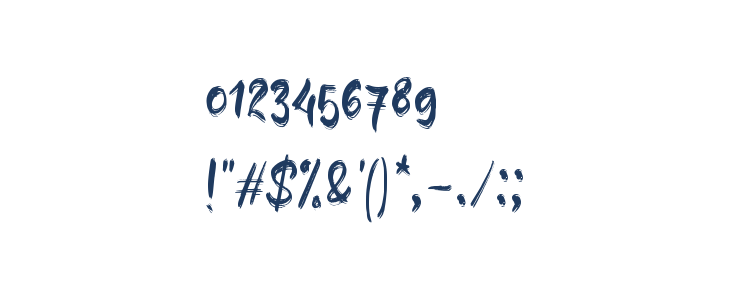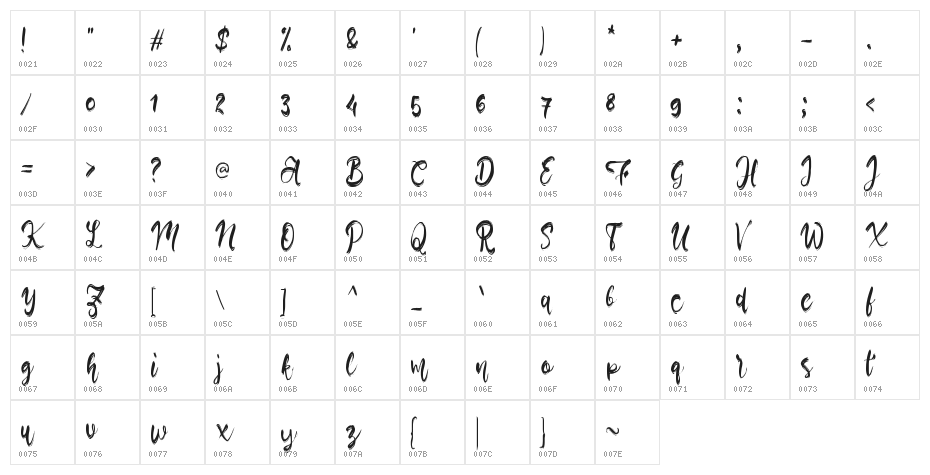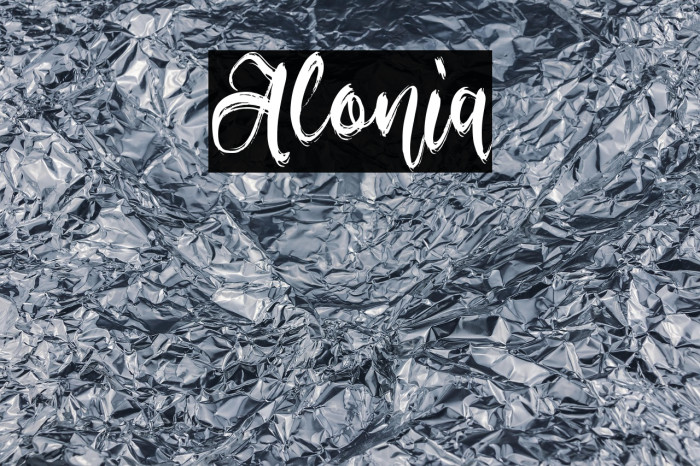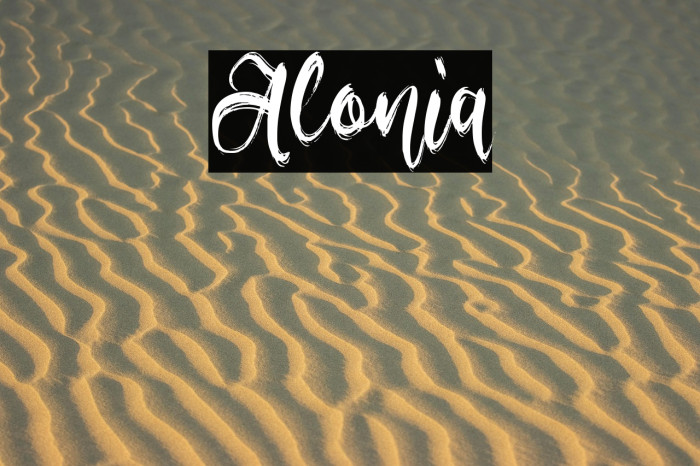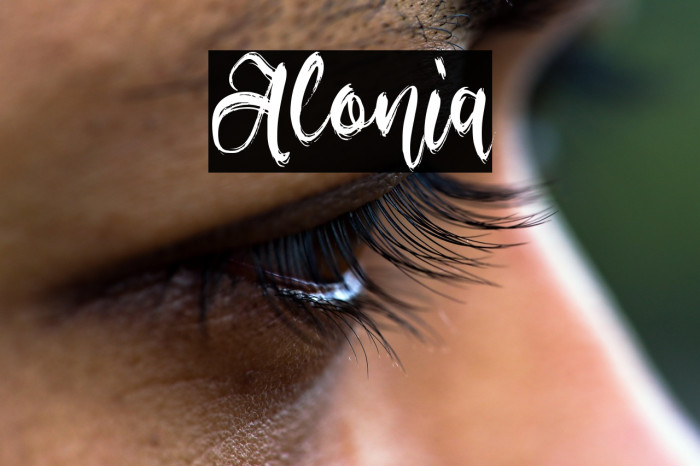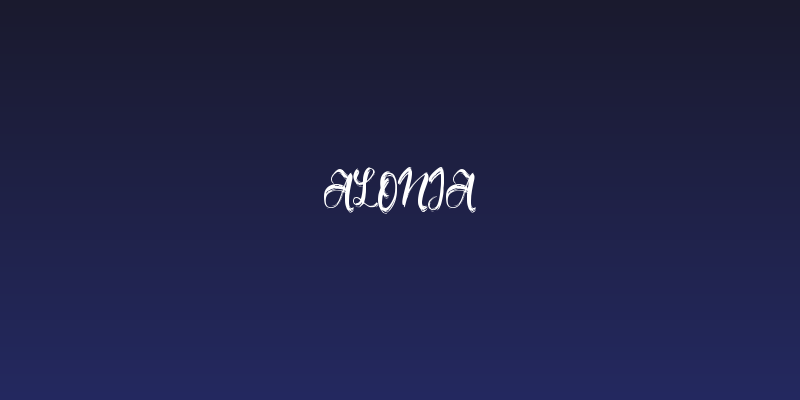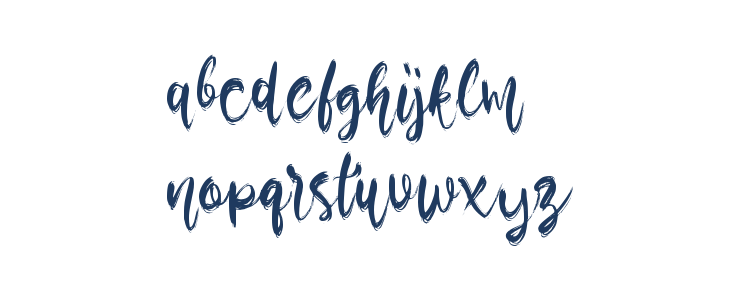
Alonia Font
Alonia Description
This font features a dynamic and expressive brush script style, characterized by its bold and fluid strokes that mimic the natural flow of handwriting. The letters are interconnected with a sense of movement and energy, giving it a lively and artistic appearance. The uppercase letters are bold and prominent, while the lowercase letters maintain a consistent flow, enhancing readability. The numerals and special characters are crafted with the same attention to detail, ensuring a cohesive look across all elements. This font is perfect for projects that require a personal touch or a creative flair.
| Use Case | Logos, Headlines, Invitations |
| Proposed Projects | Ideal for branding, invitations, greeting cards, and creative design projects. |